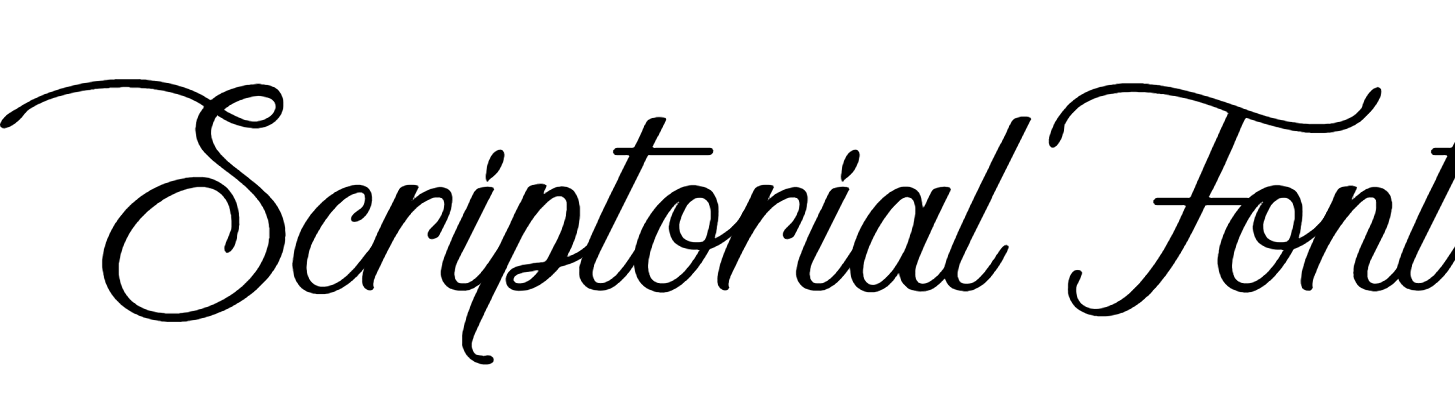
Scriptorial
Scriptorial is a calligraphy font created by Cat.B (2025). Its flowing, pen-made letters give names and short phrases a personal, polished look. It's a free download, and you can try it with your own text in the preview above first.
- Designer: Cat.B
What You Can Type With Scriptorial
Scriptorial covers the full alphabet in upper and lowercase, plus all ten numbers, so you can set names, dates and prices without switching fonts. Everyday marks like &, !, ? and @ are there too. Thanks to its accented letters, it also works for Spanish, French, Portuguese and Italian, not just English.
Where Scriptorial Works Best
Scriptorial is a natural fit for wedding invitations, certificates and elegant quotes. Its lowercase letters are small compared to the capitals, so set it a size or two bigger than usual. Script fonts read best in short bursts, so keep it to names, titles and one-line quotes. Skip all caps: script capitals are drawn to start a word, not to fill one.
Who designed Scriptorial font?
Does Scriptorial support accented letters?
Yes. Scriptorial includes the accented letters needed for Spanish, French, Portuguese and Italian, so it works for more than just English.